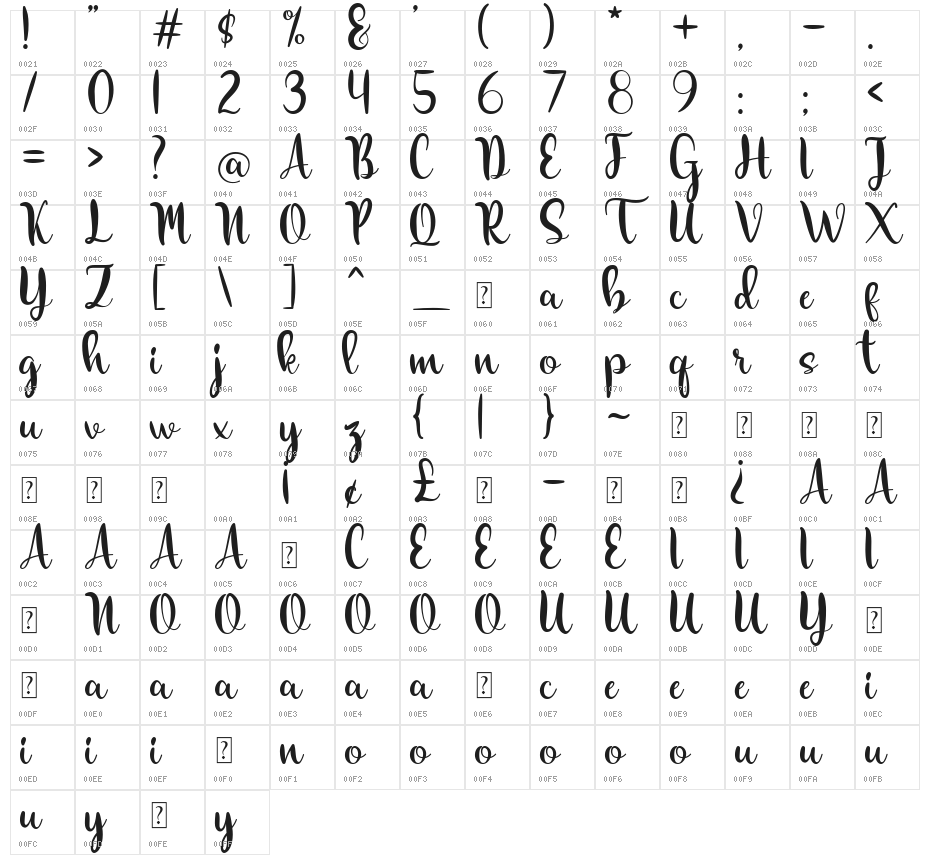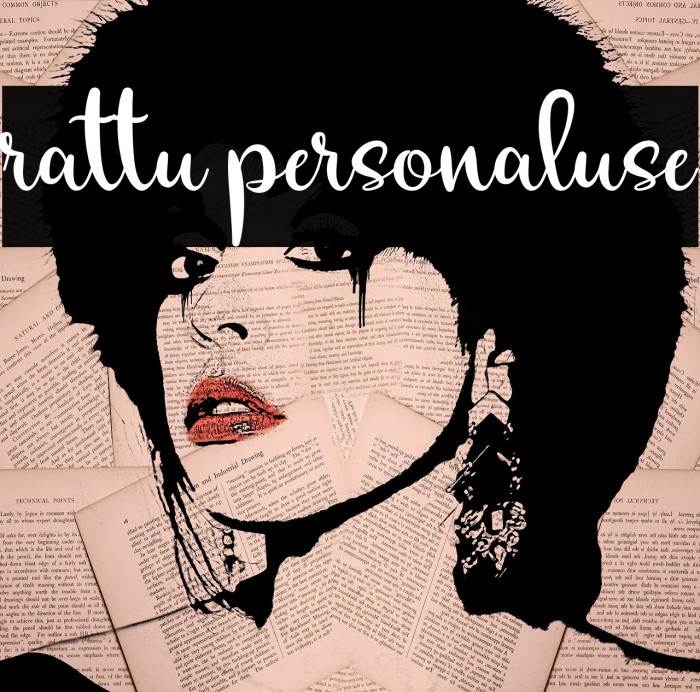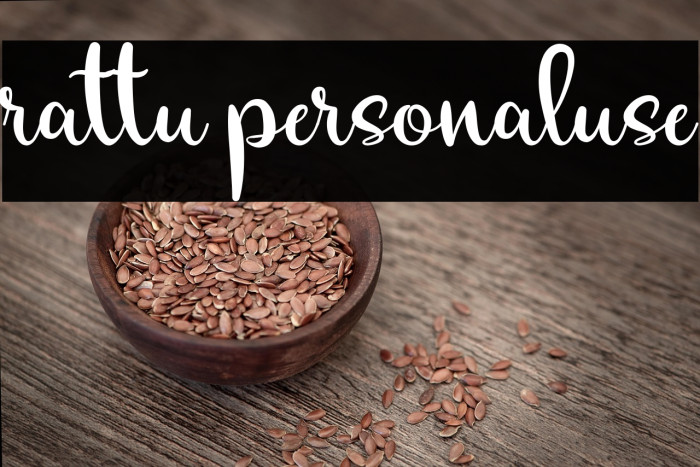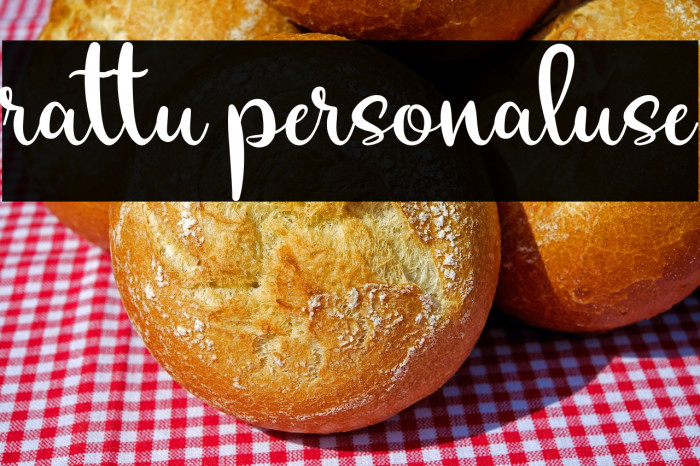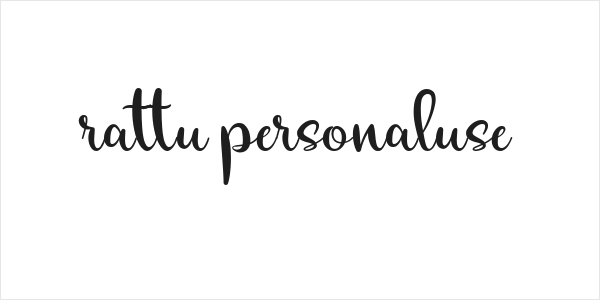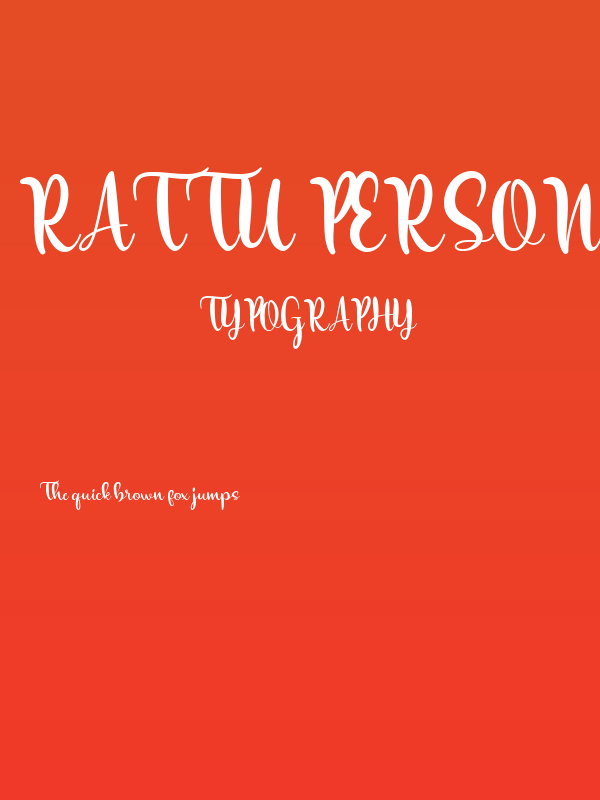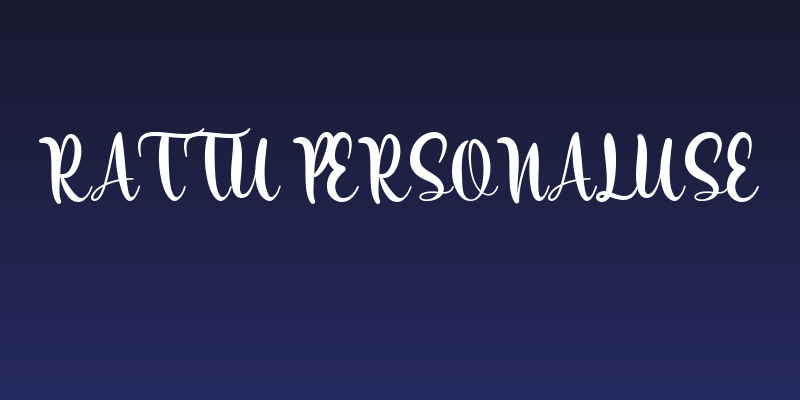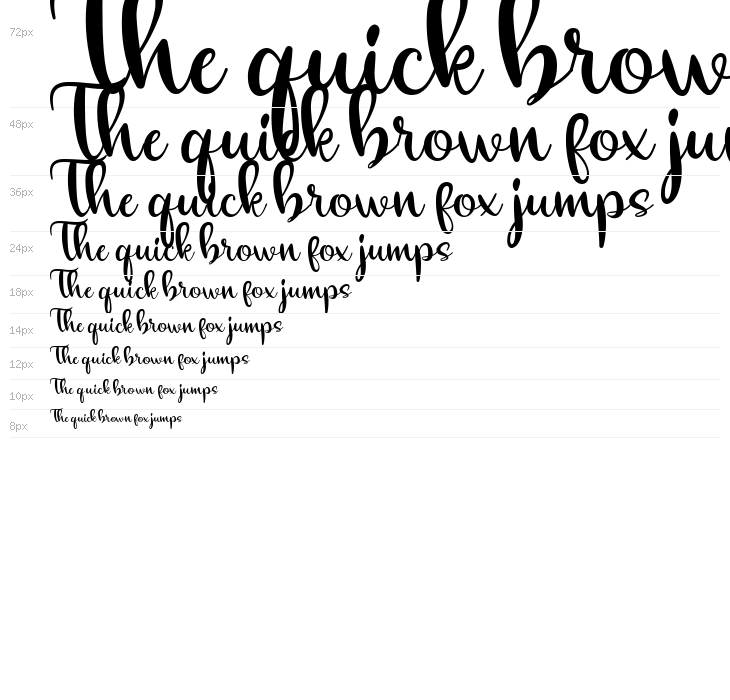
rattu personaluse Font
rattu personaluse Description
This font features a playful and elegant script style with a handwritten appearance. The letters are characterized by smooth, flowing lines and a consistent stroke width, giving it a lively and dynamic feel. The uppercase letters are tall and slightly narrow, while the lowercase letters are more rounded and compact. The numbers and special characters maintain the same whimsical style, making them cohesive with the alphabet. This font is ideal for projects that require a personal touch, such as invitations, greeting cards, or branding materials that aim to convey warmth and creativity.